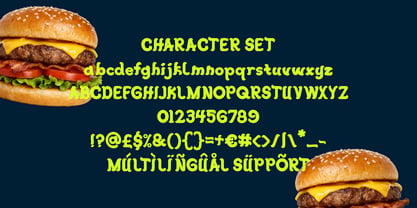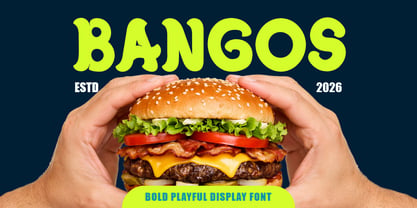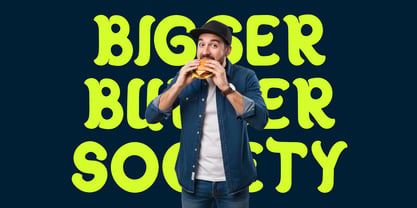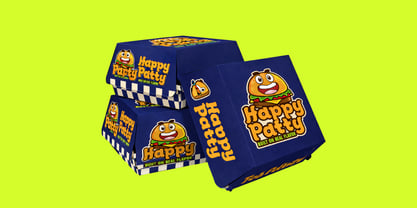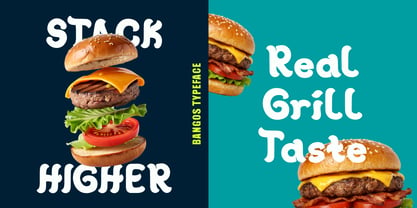
Bangos
by Shanaf
The Bangos Font Family was designed by Yesie Erma Yunita and published by Shanaf. Bangos contains 1 styles. More about this family
Bangos Bold Playful Food Display Font features thick, rounded letterforms with a strong visual punch. The characters feel wide and slightly inflated, creating a juicy and energetic rhythm. Stroke weight stays heavy and consistent, which builds solid impact in large sizes. Corners are soft and curved, avoiding sharp edges and harsh transitions. The vertical proportions lean medium to tall, keeping headlines readable and balanced. Each letter carries a friendly bounce that adds movement without losing structure. The spacing feels compact enough for bold wordmarks, yet open enough for clarity. Bangos Bold Playful Food Display Font delivers a modern playful style rooted in food branding. The overall shape language supports attention grabbing titles and expressive brand names. The style fits playful, modern, and energetic food themes with a strong fast food vibe. This font works perfectly for burger brands, street food stalls, food trucks, casual diners, snack products, and takeaway businesses. It performs strongly in logos, branding systems, packaging, posters, advertisements, menus, headlines, stickers, invitations, book covers, magazine titles, greeting cards, and promotional materials. The rounded bold structure helps food brands feel approachable and fun. It communicates flavor, excitement, and personality in a direct way. The font adapts smoothly across print and digital platforms. Multilingual support allows wider market reach for international food businesses. Bangos Bold Playful Food Display Font helps build a memorable burger branding identity that stands out in competitive markets.
Designers: Yesie Erma Yunita
Foundry: Shanaf